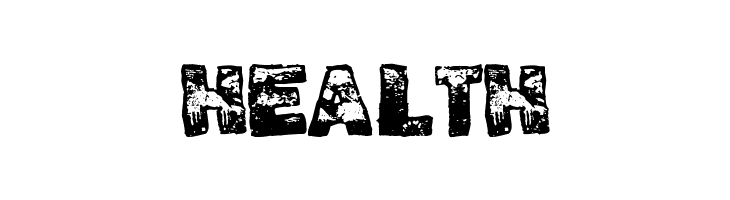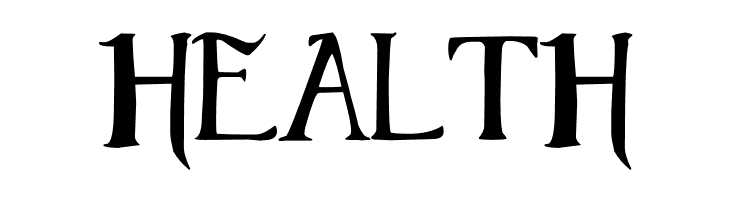
( Fonts by Bang Rusd )
A bold, playful font with a robotic, stitched pattern design.
A futuristic, geometric font with a shadow effect, ideal for tech-themed designs.
( Fonts by Almarkhatype Studio )
A bold, modern font with a vintage touch, featuring thick strokes and a slightly condensed structure.
An elegant, flowing script font with a sophisticated cursive style.
A bold, hand-painted style font with dynamic, uneven strokes.
A bold, expressive script font with fluid, dynamic strokes.
( Fonts by Neale Davidson - www.pixelsagas.com )
A bold, oblique font with a futuristic and dynamic style.
A flowing, elegant handwritten font with artistic curves and loops.
A bold, brush script font with dynamic, fluid strokes and a modern, edgy aesthetic.
A bold, expressive script font with a handwritten style.
A bold, playful script font with a handwritten feel and rounded edges.
A lively, cursive font with elegant, flowing letters and a dynamic style.
A graceful and elegant script font with flowing cursive letters and intricate swashes.
( Fonts by Ditya Ananto )
A playful, hand-drawn font with letters in circular shapes, perfect for creative projects.
A modern, flowing cursive font with elegant and smooth letterforms.
A bold, expressive script font with dynamic curves and artistic flair.
( Fonts by Hanzel Space )
A dynamic handwritten font with fluid, expressive letterforms and elegant contrast.
A bold, cursive font with elegant, flowing lines and a modern aesthetic.
A bold, brush-style font with a rough, artistic texture.
A bold, italic brush-style font with a rough, hand-drawn appearance.
An elegant, cursive font with fluid strokes and a sophisticated style.
An elegant, cursive script font with a flowing, handwritten style.
A playful, decorative font with floral cutouts and bold, rounded characters.
A playful, dynamic handwritten font with a casual, flowing style.
A bold, 3D decorative font with a playful and dynamic style.
A casual, handwritten font with a flowing and dynamic style.
A fluid, handwritten cursive font with elegant, connected strokes.
( Out Of Step Font Company - outofstepfontco.com )
A bold, decorative font with a vintage tattoo style.
( Out Of Step Font Company - outofstepfontco.com )
A bold, decorative font with a tattoo-inspired, nautical aesthetic and italic slant.
A playful, elegant cursive font with intricate swirls and high contrast.
An elegant, flowing script font with ornate, decorative flourishes.
A flowing, cursive font with elegant, sweeping strokes and ornate flourishes.